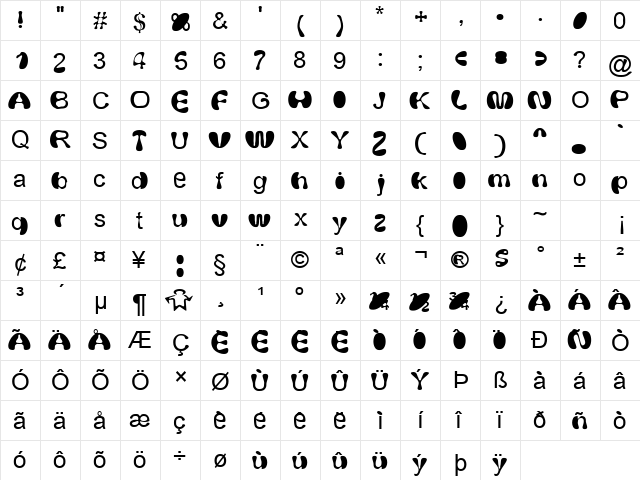
Arialous Regular
Design Context for Arialous Typeface
Arialous is a composed and adaptable typeface that performs quietly and consistently across a wide range of design contexts.